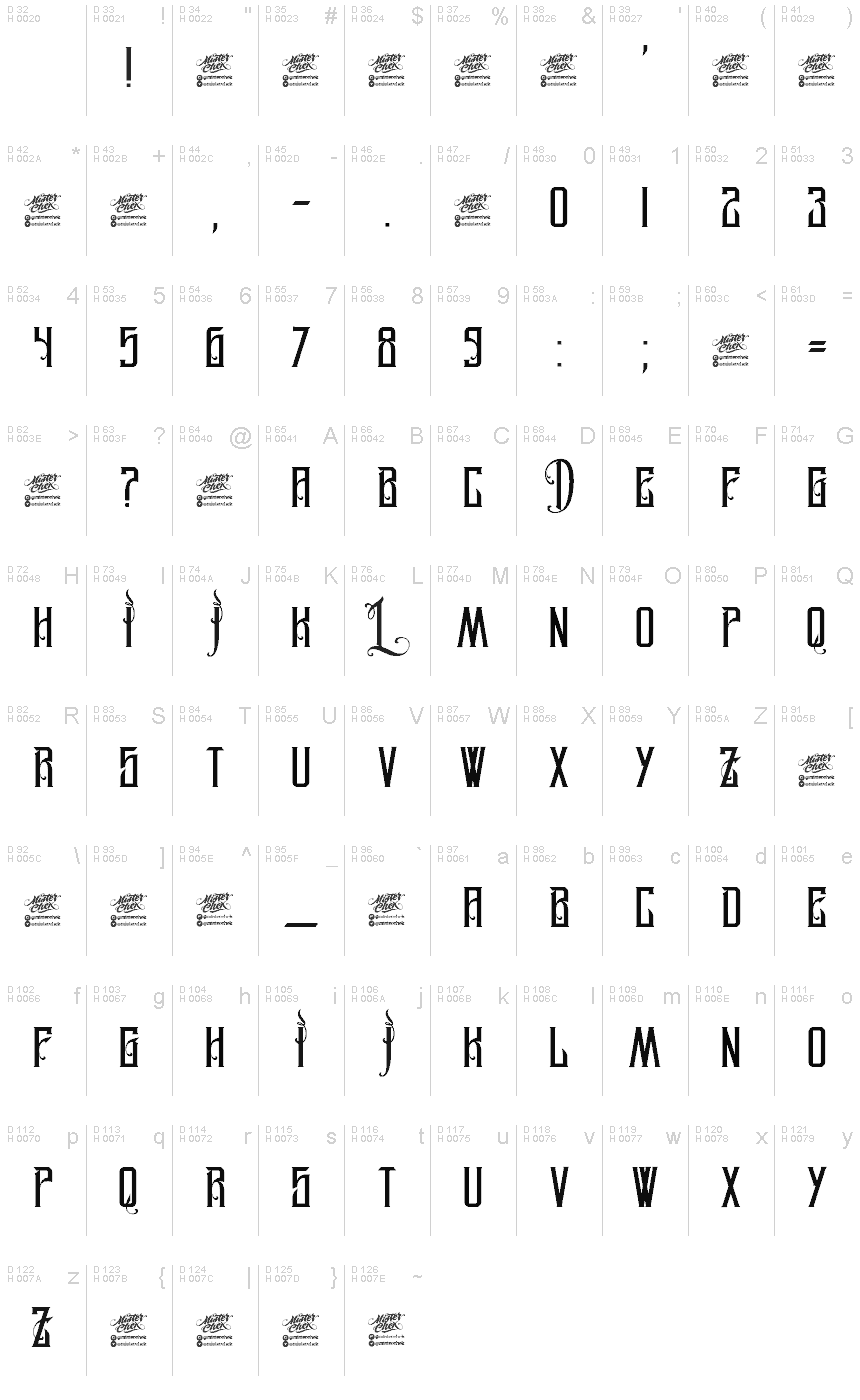
MCF Legion of Darwin
MCF Legion of Darwin is a striking, retro-inspired display font designed by Mister Chek. Its condensed form and ornate, Gothic-influenced letterforms evoke a sense of timelessness and vintage charm. The font's unique character shines through in the intricate detailing, from the elongated ascenders to the dramatic serifs that lend an air of elegance.
This font's versatility makes it well-suited for a range of design applications, from bold headlines and event branding to vintage-inspired packaging and editorial layouts. Its condensed width allows for impactful typographic compositions, while the retro aesthetic adds a touch of nostalgia that can elevate both modern and classic design projects.